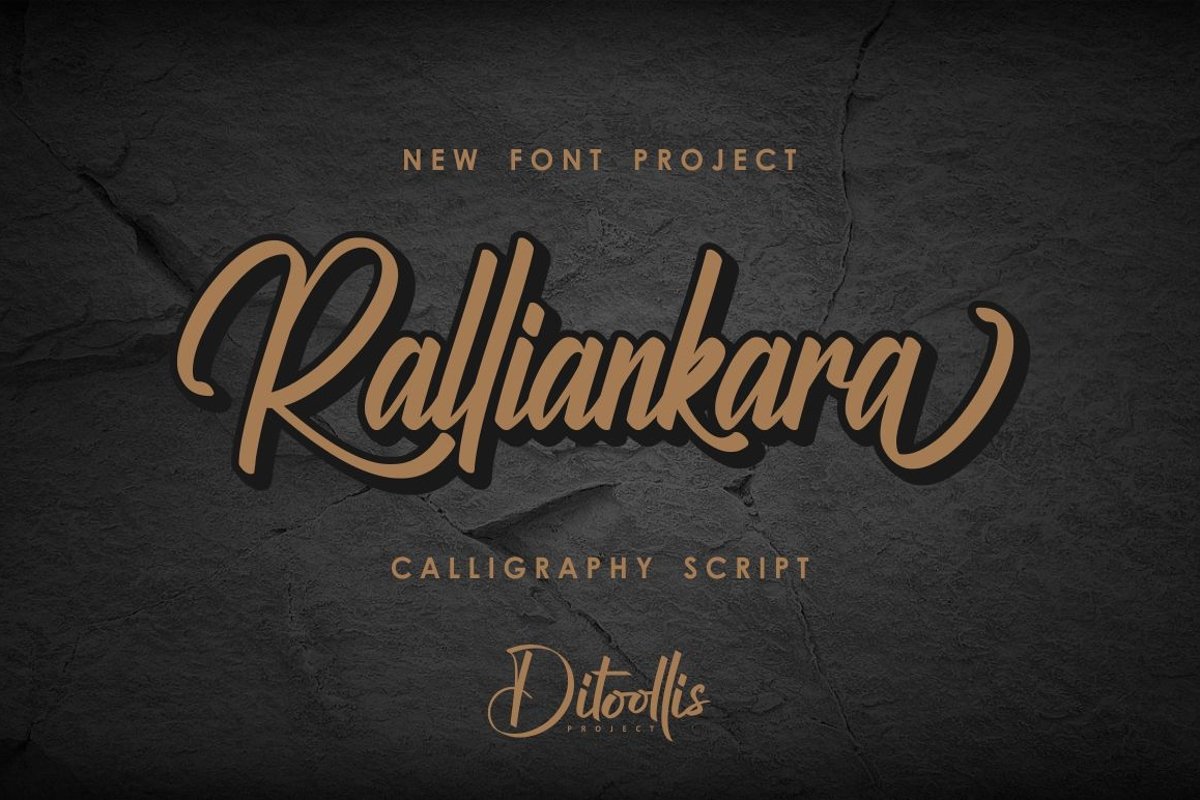
Ralliankara
I will introduce my newest product "Ralliankara"
This font is very modern, and is perfect for your design ...
This font is elegant, gentel, and really cool, of course
Equipped with font:
- numbers
And of course there are several other features
- Alternates